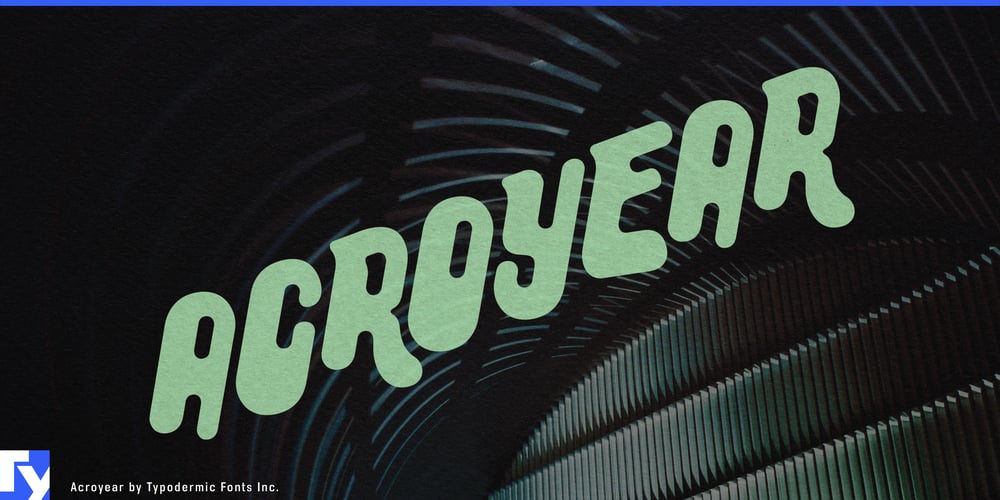
Acroyear Font Family was designed by Ray Larabie and published by Typodermic. Acroyear contains 1 styles and family package options. Elevate your designs with Acroyear, a captivating display typeface that demands attention. This distinctive font family is built on a soft, capsule-like shape that’s both eye-catching and versatile. While Acroyear performs admirably in horizontal layouts, it truly comes alive when set on an upward incline—unlocking a world of creative possibilities.Acroyear’s unique character makes it an ideal choice for a wide range of applications. From whimsical children’s book covers to avant-garde fashion campaigns, this typeface infuses designs with personality and flair. Its soft curves and playful essence offer a refreshing alternative to more conventional options, ensuring your work stands out in a crowded visual landscape.Designed with the modern creative professional in mind, Acroyear seamlessly integrates into various design contexts. Whether you’re crafting a striking logo, an engaging poster, or a cutting-edge website, this typeface provides the perfect balance of quirkiness and readability. Its distinctive form invites viewers to pause and engage, making it an invaluable tool for brands seeking to make a lasting impression.Acroyear’s versatility extends beyond its visual appeal. This thoughtfully crafted typeface supports an extensive range of Latin-based European languages. From Albanian to Zulu, Acroyear ensures your message resonates across linguistic boundaries.Discerning designers understand the power of typography in shaping perceptions and conveying messages. Acroyear offers that rare combination of uniqueness and functionality—a typeface that’s not just a font, but a creative partner in your design journey. Explore the possibilities that Acroyear brings to your projects, and discover how it can transform your visual communications from ordinary to extraordinary.